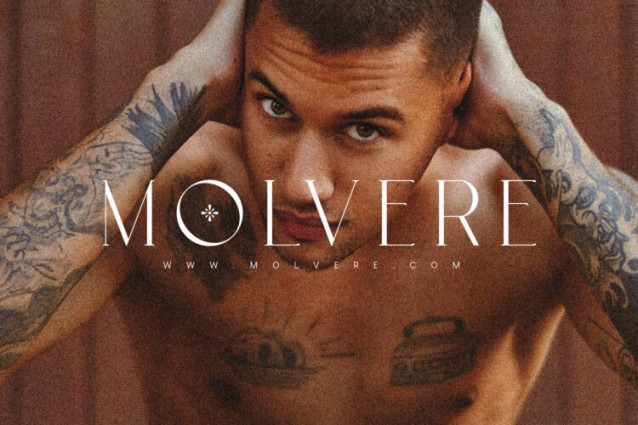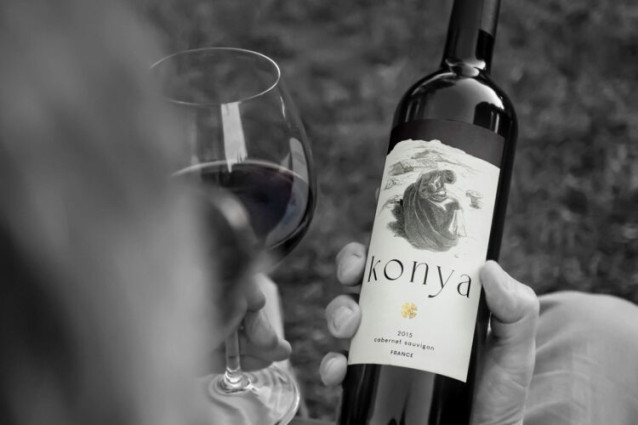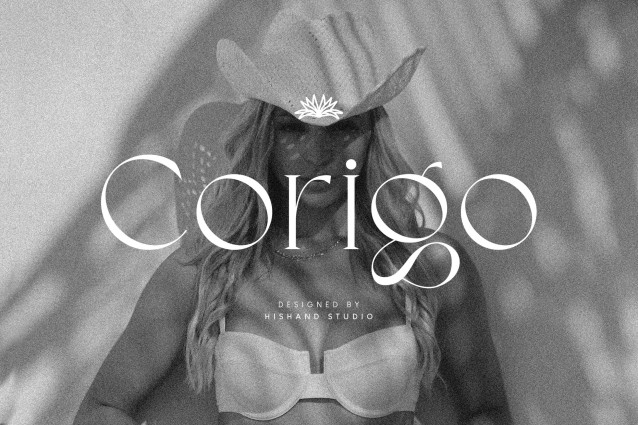
Corigo Font is an elegant serif font designed to embody sophistication, refinement, and timeless appeal. Every letterform is shaped with balanced proportions and carefully considered details, resulting in a typeface that feels both classic and modern. It captures the essence of aesthetic design while offering the clarity and functionality needed for everyday use.
One of Corigo’s strengths lies in its versatility. The refined strokes and subtle serifs create a font that is equally at home in bold headlines, editorial spreads, luxury logos, or even extended passages of text. The graceful curves and consistent rhythm of the characters allow it to deliver readability without sacrificing style. This makes Corigo an excellent choice for projects where elegance and professionalism must go hand in hand.
Whether you are working on branding for a high-end fashion label, designing stylish wedding invitations, or developing sophisticated packaging, Corigo adds the kind of polish that makes your work stand out. Its aesthetic qualities communicate trust, quality, and artistry ideal for designers and brands who want their message to leave a lasting impression.
Beyond its beauty, Corigo adapts seamlessly to different design contexts. It can provide a modern, structured tone for digital interfaces, lend authority and charm to printed editorials, or enhance advertising campaigns with an air of luxury. This adaptability ensures that your designs feel consistent and intentional across various mediums.
In addition to its beauty, Corigo brings a sense of versatility that adapts seamlessly to different design contexts. It can be used to emphasize sophistication in fashion-related projects, add structure and elegance to corporate materials, or create a warm yet professional tone for digital media. Wherever it appears, Corigo adds a refined touch that enhances the overall visual experience.
At its heart, Corigo is more than just a typeface it’s a tool for creative expression. With its timeless design, it invites you to tell stories that feel polished, memorable, and visually compelling. Corigo ensures your typography doesn’t just communicate words, but also conveys elegance, confidence, and style in every project.